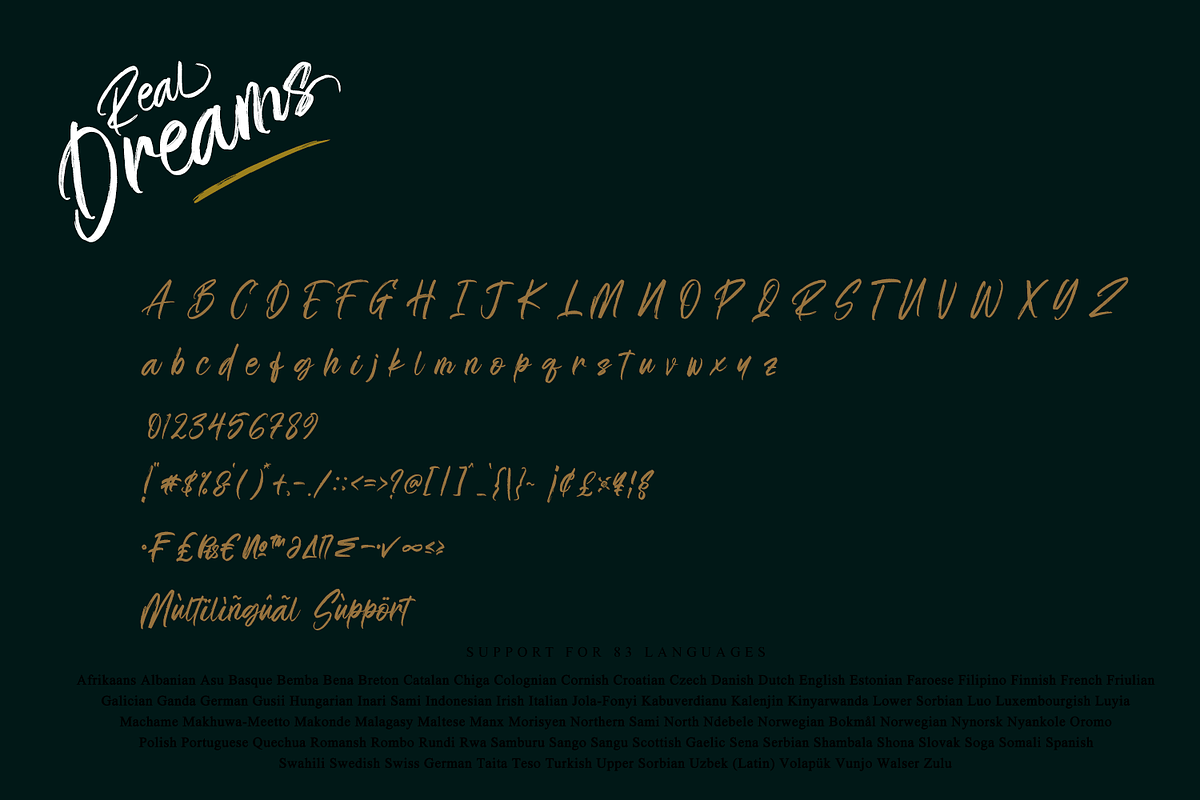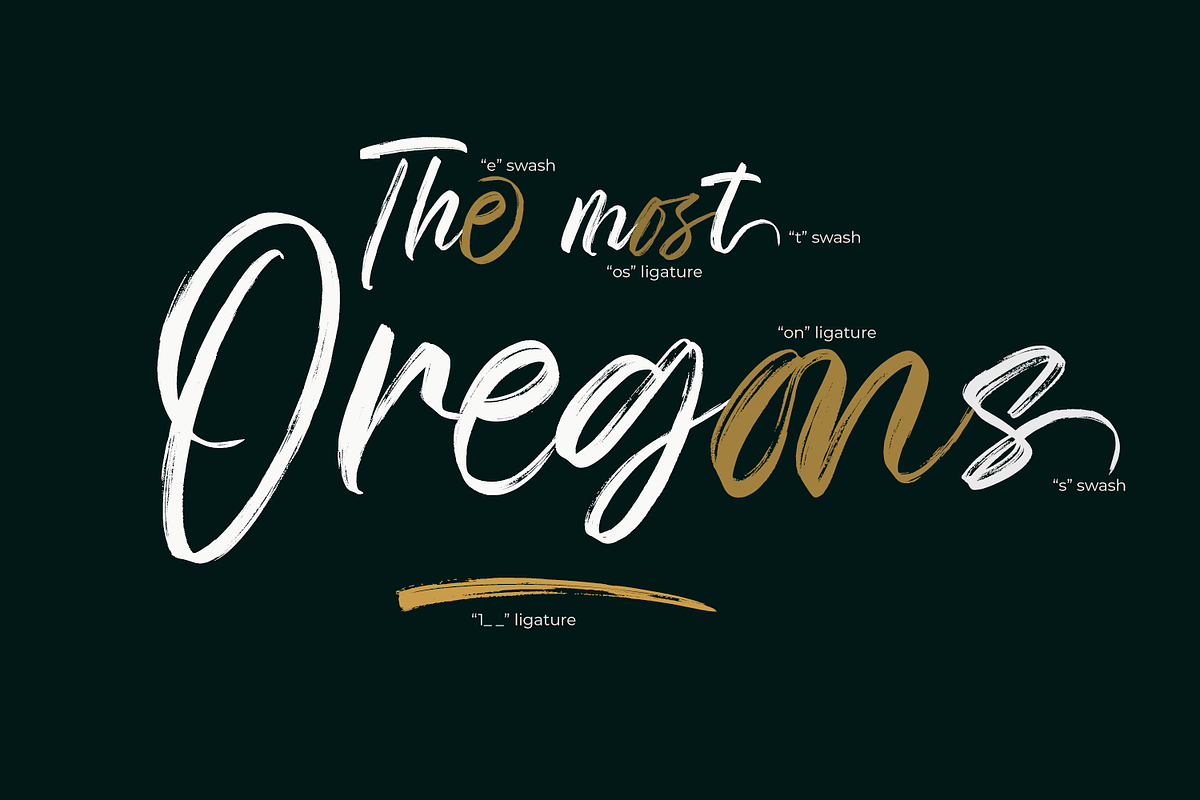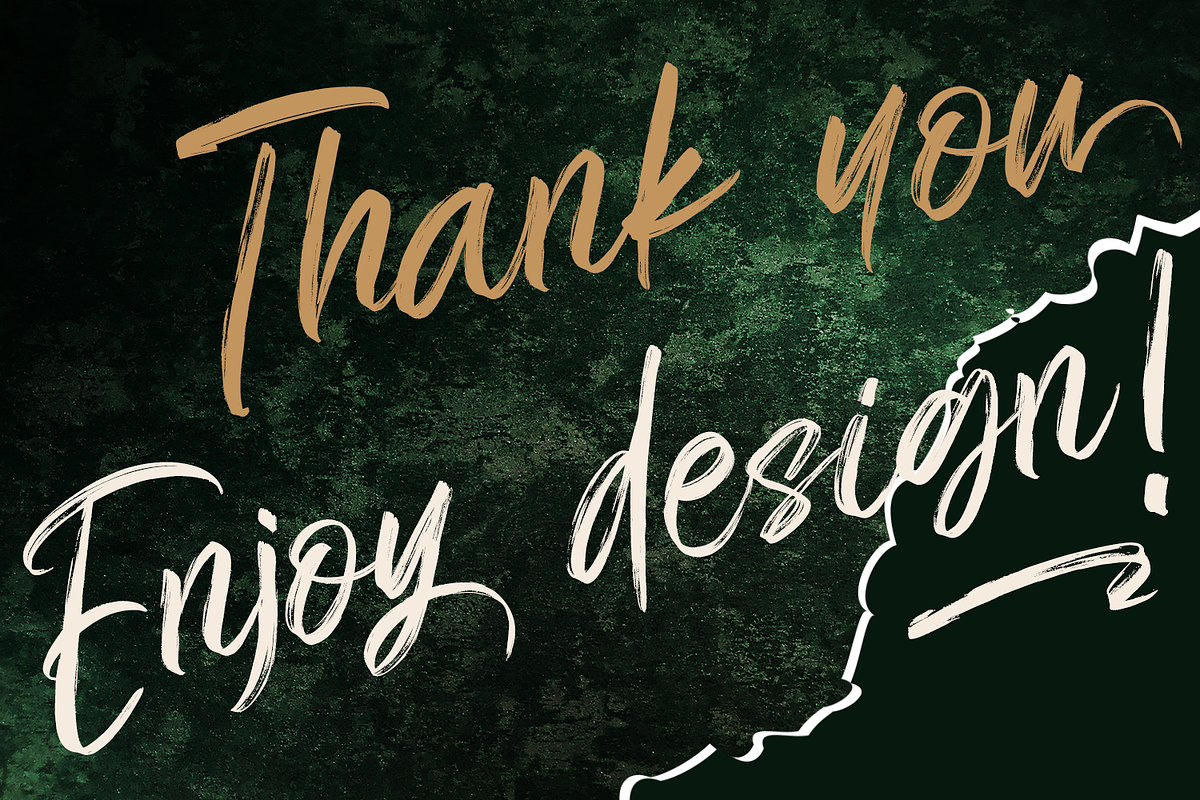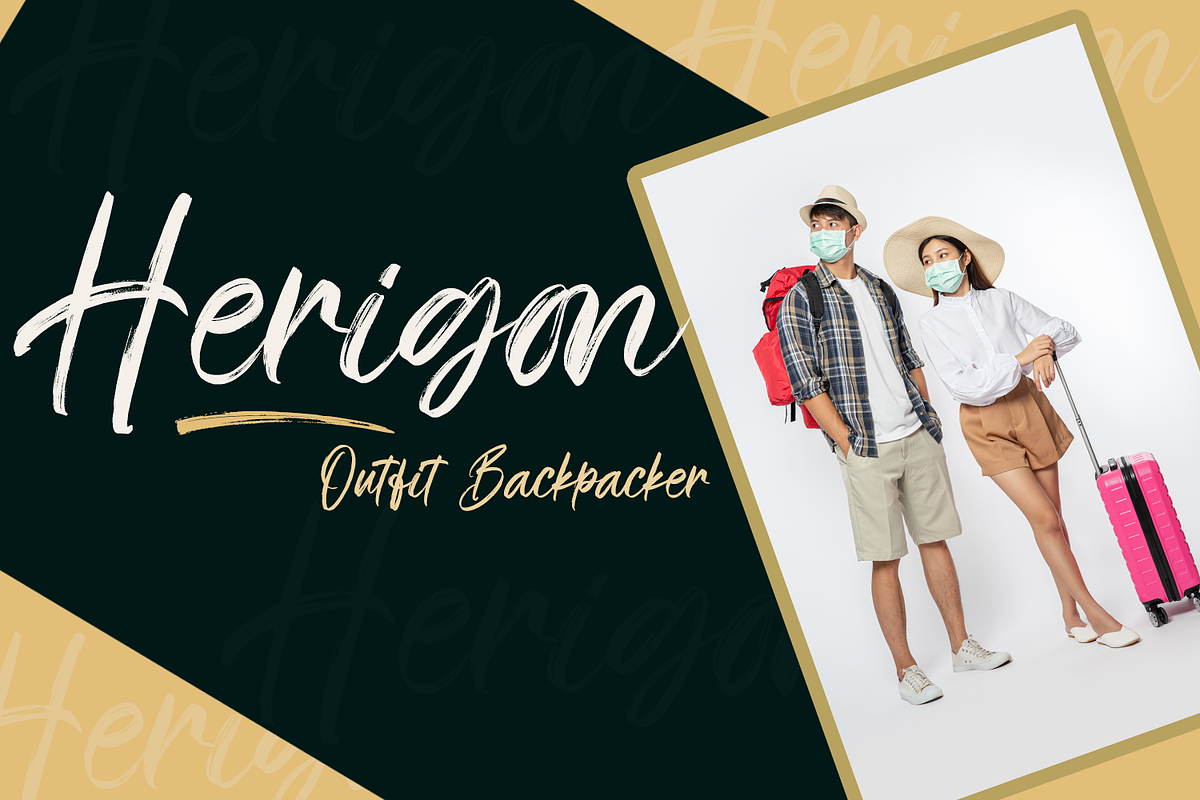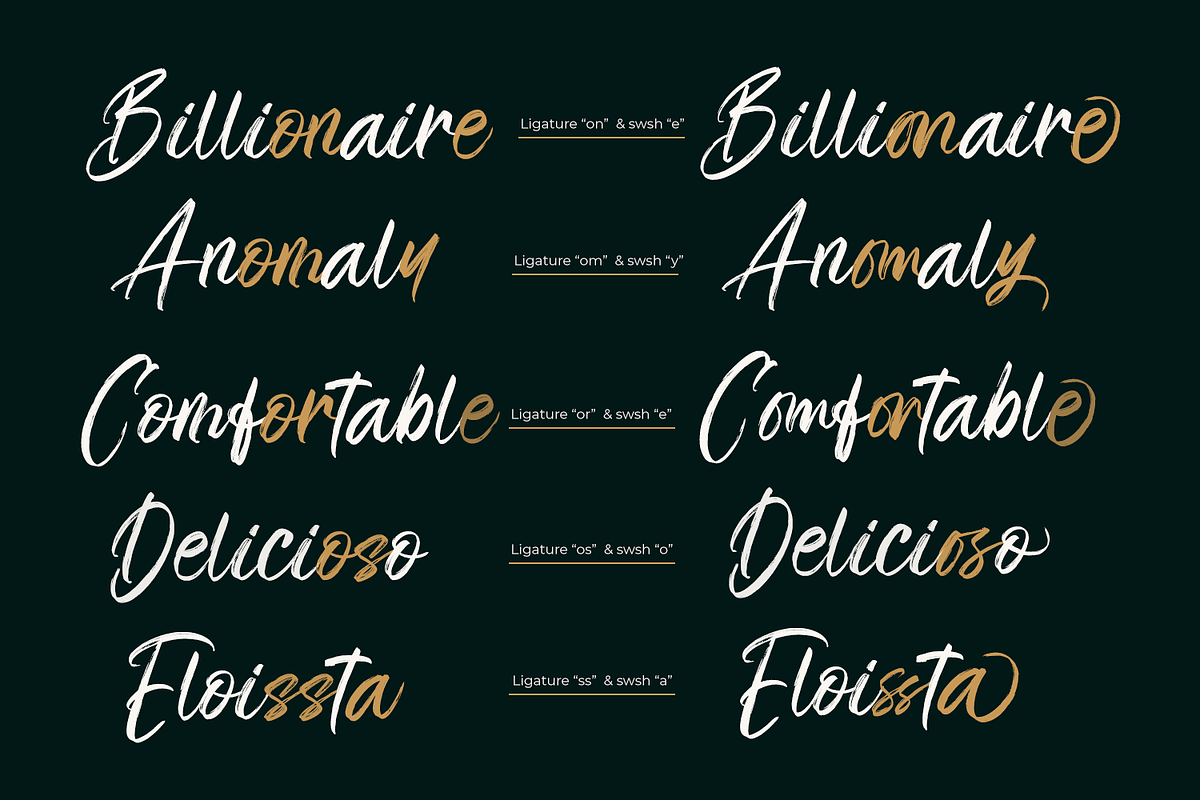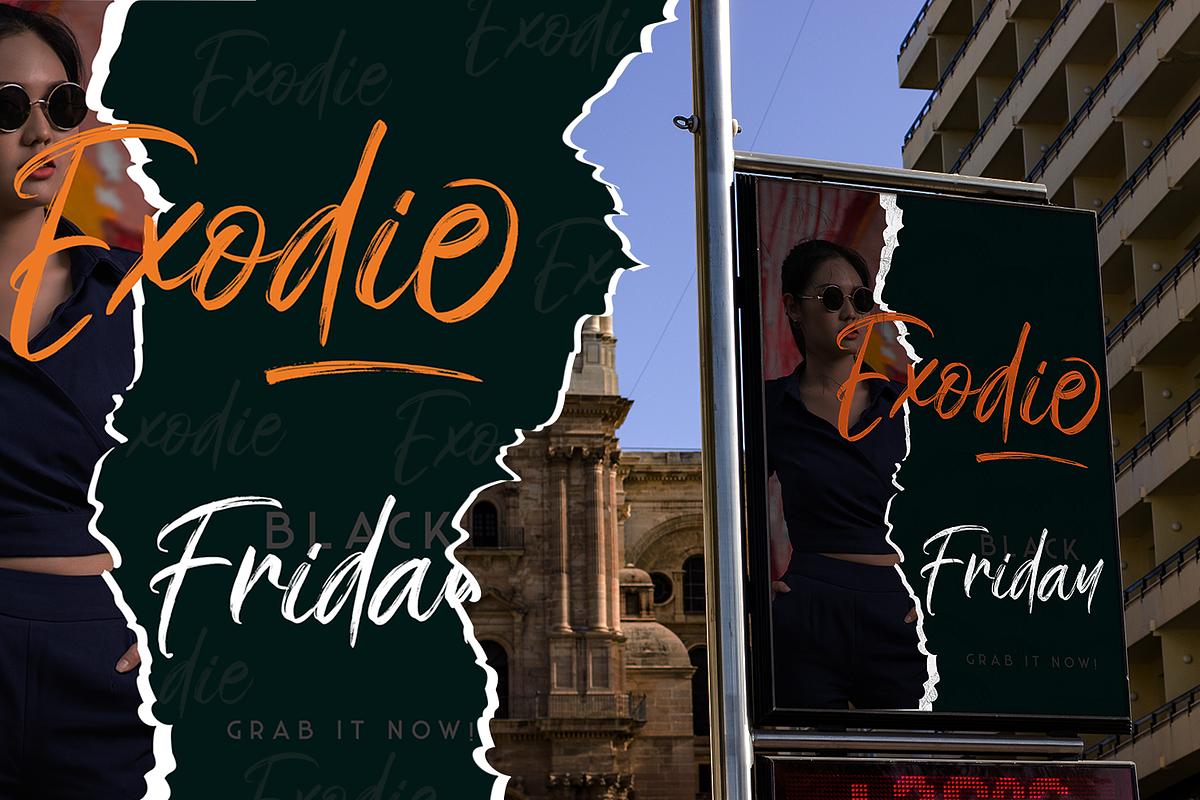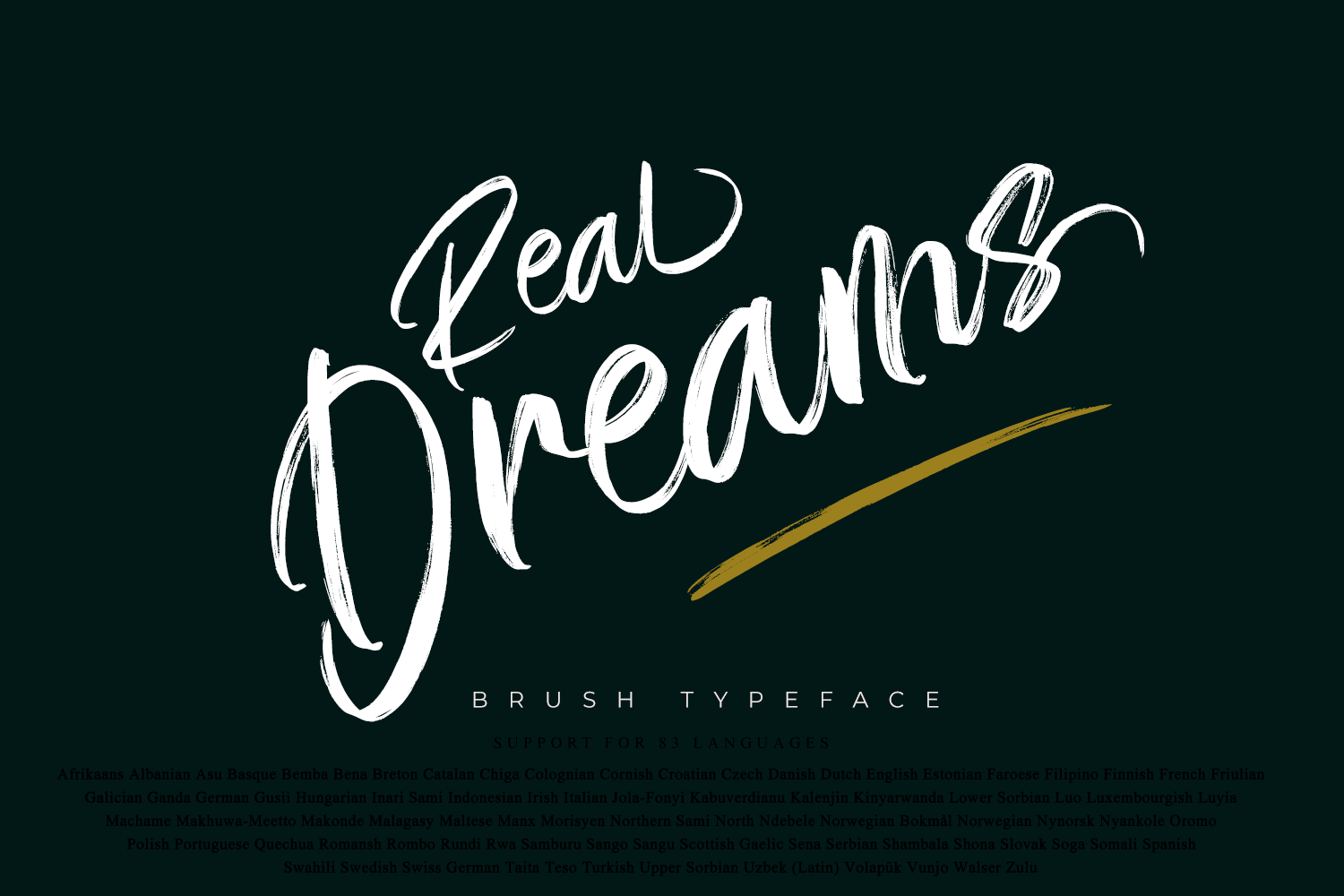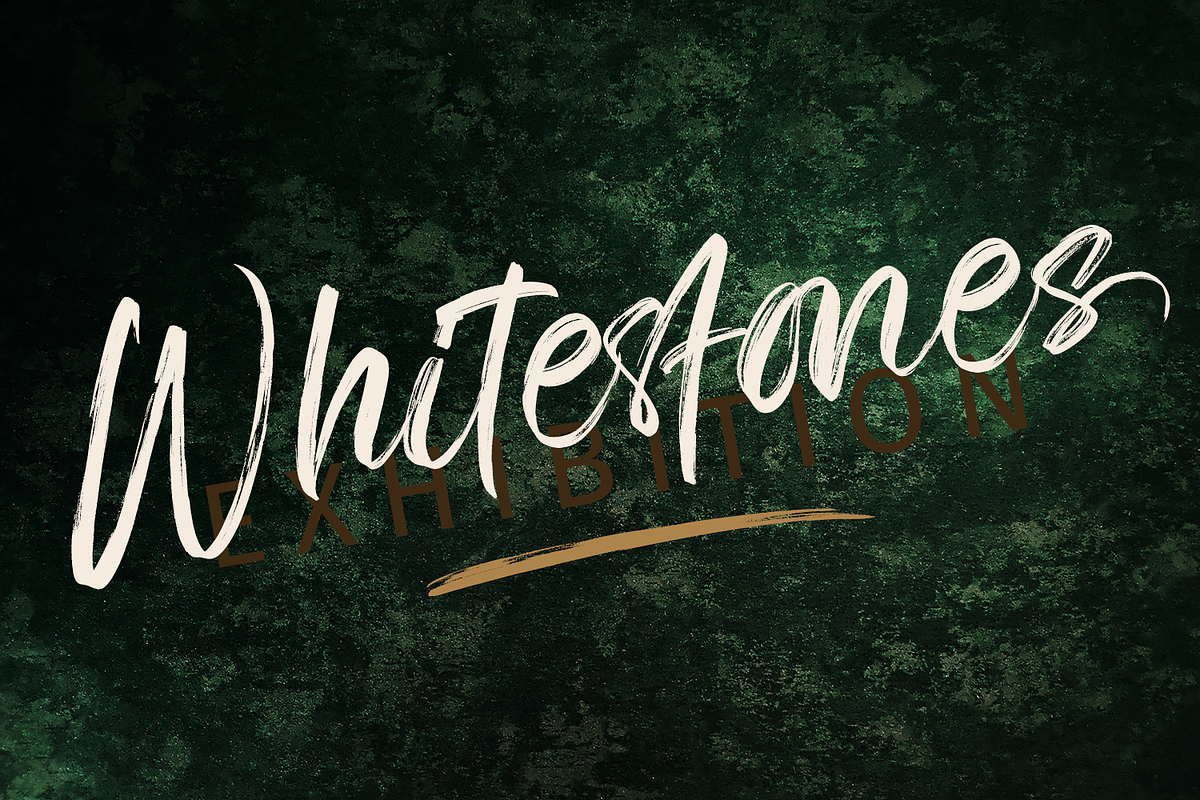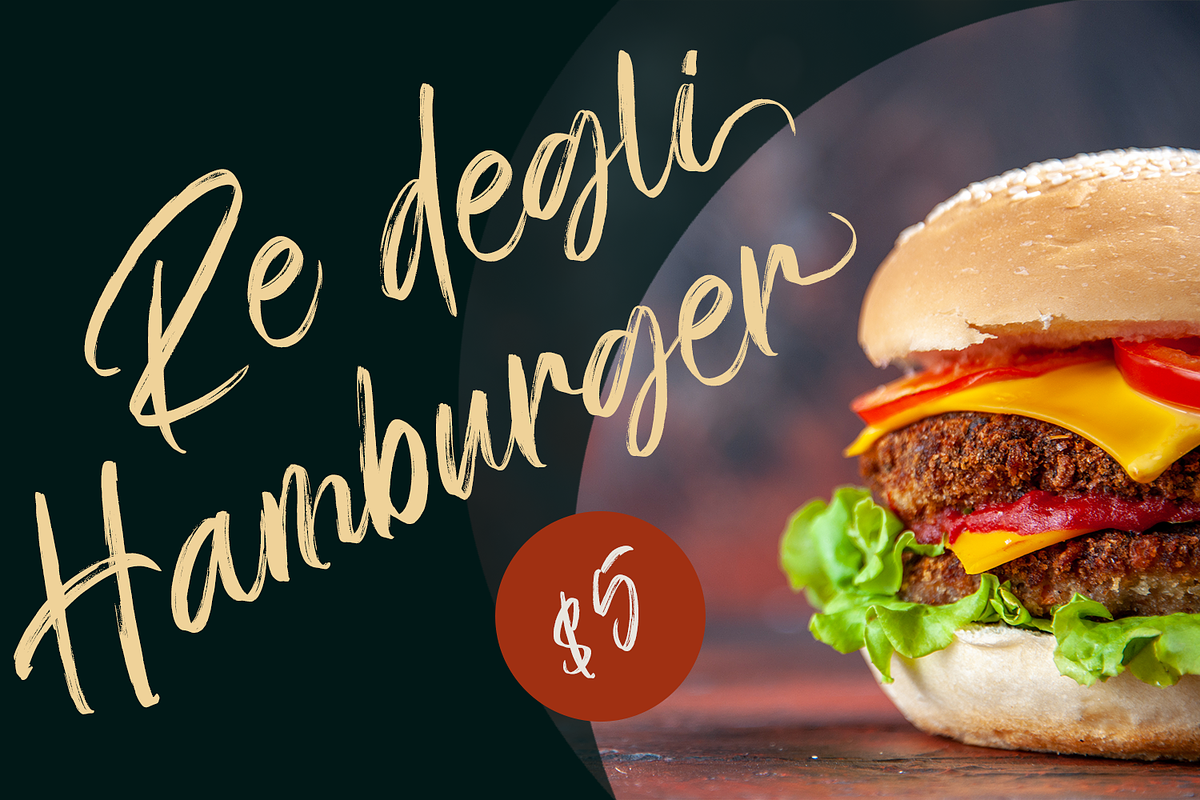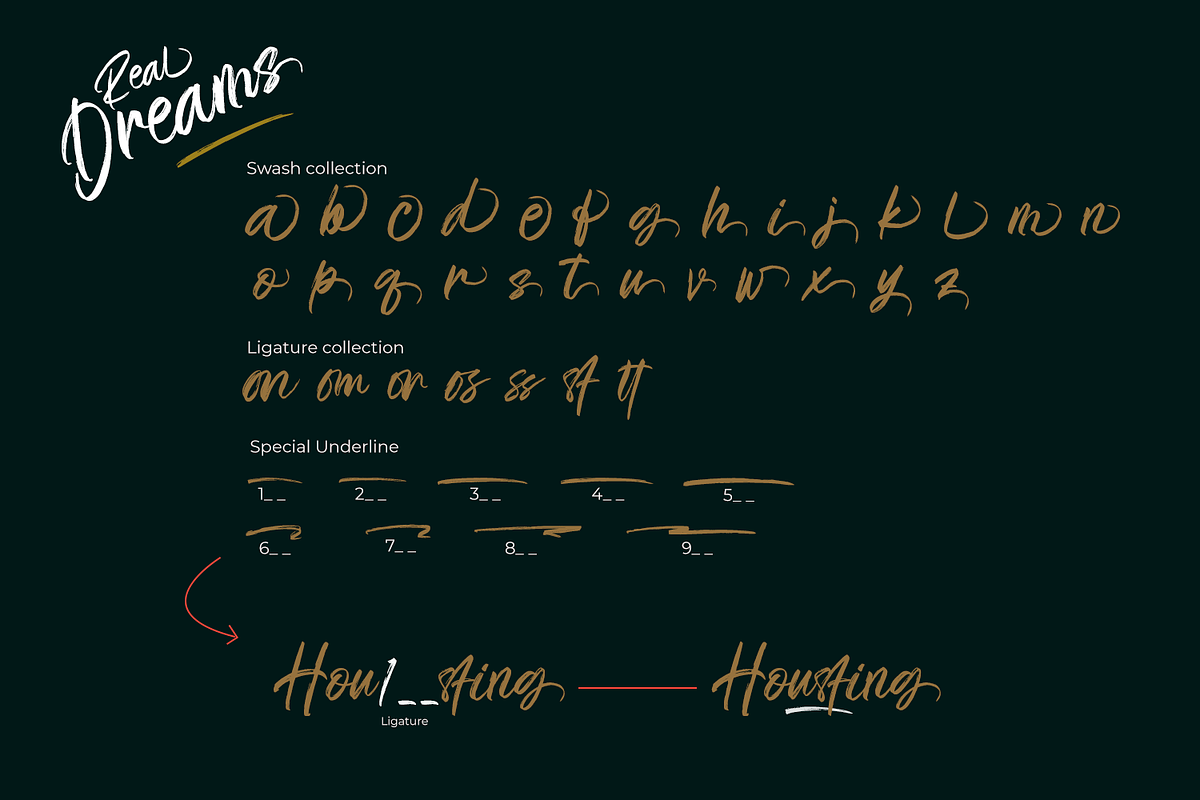
Real Dreams // Brush Typeface
Hurry up, original handwritten work that displays a modern impression and bold strokes to design your product!
Real Dreams is an original script font with a modern scratch and contemporary style. This font is perfect for many projects such as logos & branding, stationery, logo designs, social media posts, advertisements, product packaging, product designs, label, watermark, Product branding and others.
- Multilingual Support for 83 Country
- Swash Collection
- Ligature Collection
- Special underline